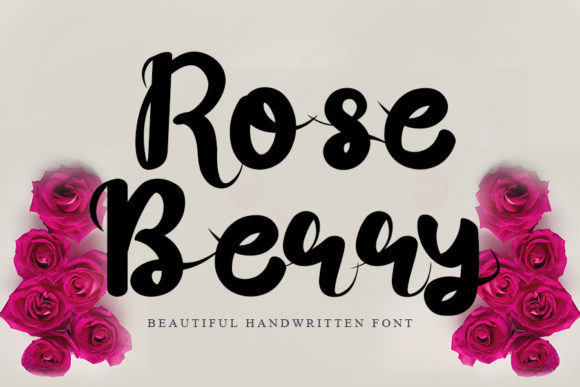
Take your designs to new heights with the enchanting Rose Berry Font. This exquisite script, crafted by the talented Inermedia Studio, will add a touch of elegance and charm to your logo designs and various craft projects. Immerse yourself in the beauty of Rose Berry, where simplicity and sophistication meet to create something truly extraordinary.
Unleash your creativity and let the Rose Berry Font guide you to design masterpieces. Its delicate strokes and graceful curves will capture the attention of your audience and leave a lasting impression. Transform your ideas into tangible works of art with the effortless flow of Rose Berry. Design logos that radiate sophistication, create headers that exude elegance, and craft invitations that evoke a sense of timeless beauty.
Whether you're a seasoned designer or just starting your design journey, Rose Berry is the perfect companion for your creative endeavors. Its versatility and user-friendly nature make it accessible to all. With Rose Berry, you'll discover a world of possibilities, where your imagination knows no bounds.
Don't miss out on the opportunity to elevate your designs and captivate your audience with the Rose Berry Font. Experience the joy of creating designs that resonate with your soul and leave an indelible mark on the world. Let Rose Berry be your trusted ally, guiding you toward design excellence and transforming your creative visions into stunning realities.
**Embark on a design adventure with Rose Berry and witness the magic unfold!**